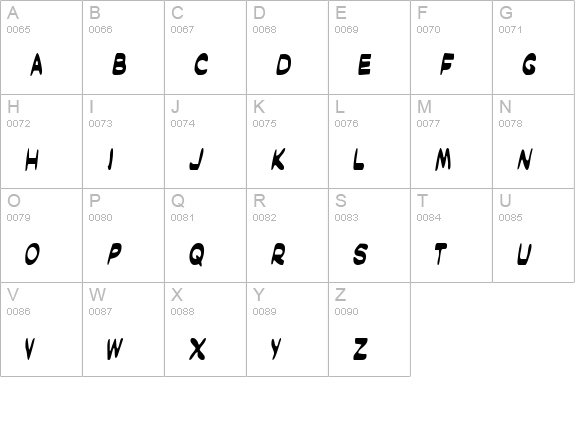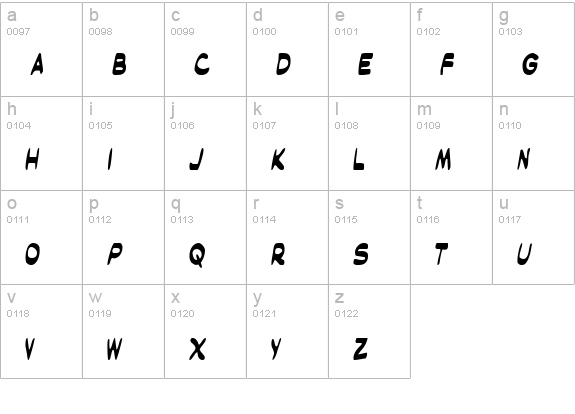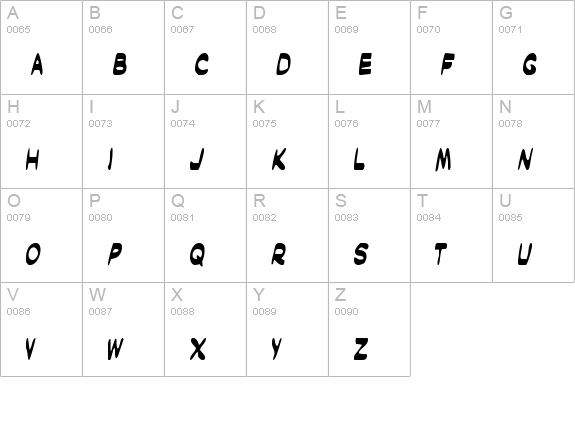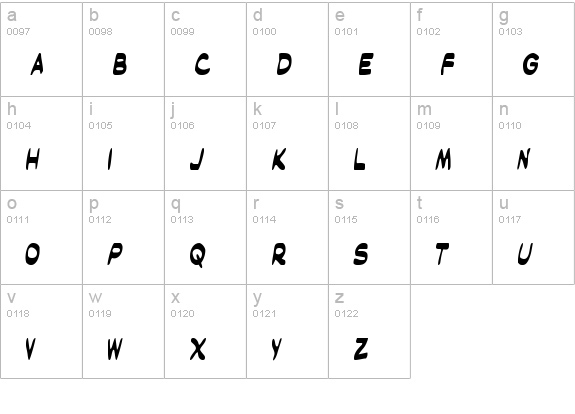
Masked Marvel Condensed Font Details
Masked Marvel Condensed is a distinctive, condensed-width variant in the Masked typeface family \xE2\x80\x94 well suited to design and typography projects.
Introducing the captivating and enigmatic Masked Marvel Condensed font, a true masterpiece in the world of typography. With its bold and powerful presence, this font will leave a lasting impression on any design project. Masked Marvel Condensed is a versatile typeface that effortlessly combines elegance with a touch of mystery. Its condensed form adds a unique and sophisticated flair to any text, making it perfect for headlines, titles, and branding materials. This font's meticulously crafted letterforms exude an air of confidence and authority, making it an ideal choice for projects that demand attention and make a bold statement. Its clean lines and sharp edges ensure legibility even at smaller sizes, ensuring every detail is showcased with precision. But what sets Masked Marvel Condensed apart is not only its striking aesthetic; it is also its freedom. This extraordinary font is available for free, making it easily accessible for designers, enthusiasts, and creators alike. To obtain this exceptional typeface, simply head over to FontsMarket.com, where you can freely download Masked Marvel Condensed and explore the vast array of other remarkable fonts. With its seamless compatibility across various design software and platforms, this font will effortlessly elevate your creative endeavors. Unleash your imagination and let Masked Marvel Condensed guide your designs to new heights. Embrace the power of this captivating font and witness the magic it brings to your projects.